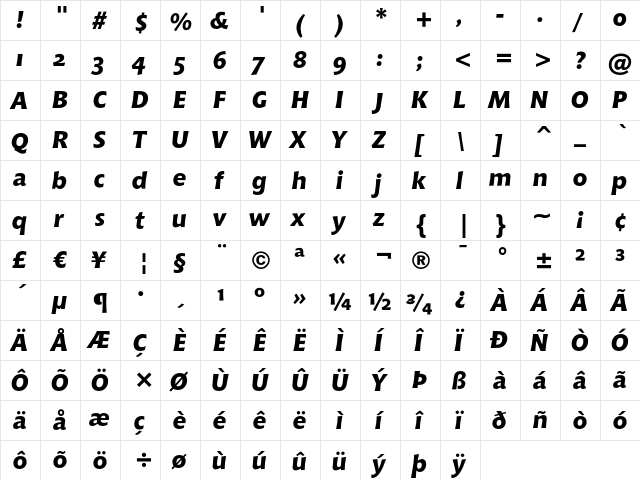
Bitstream Chianti Extra Bold Italic OSF
Design Context for Bitstream Chianti Typeface
Bitstream Chianti offers clean, dependable letterforms without strong stylistic allegiance, making it a practical choice for designers who need flexibility. The slanted form adds forward momentum and visual energy. Its bold stroke weight gives it real presence on the page.
Pro Tip: Use Bitstream Chianti for emphasis, pull quotes, and subheadings where its slanted energy can add rhythm to the layout.